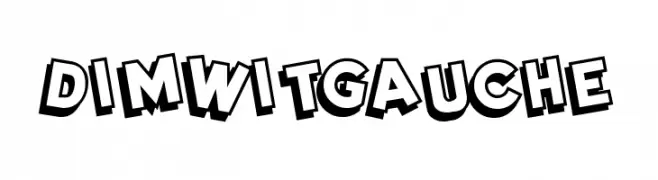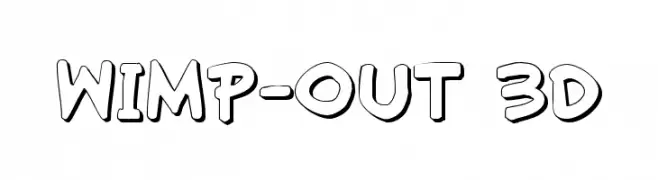
A bold, condensed, and playful font with a comic book style.
A playful, hand-drawn style font with bold, irregular strokes perfect for comic or casual designs.
A playful, comic-style font with rounded, bold strokes and a hand-drawn feel.
A bold, playful font with a 3D comic book style.
A bold, collegiate-style font with strong, block-like characters.
A bold, playful font with chunky outlines and a cartoonish style.
A bold, distressed font with an urban, industrial aesthetic.
A bold, utilitarian font with uniform stroke width, ideal for clear and impactful text.
A bold, playful 3D font with thick outlines and a comic book style.